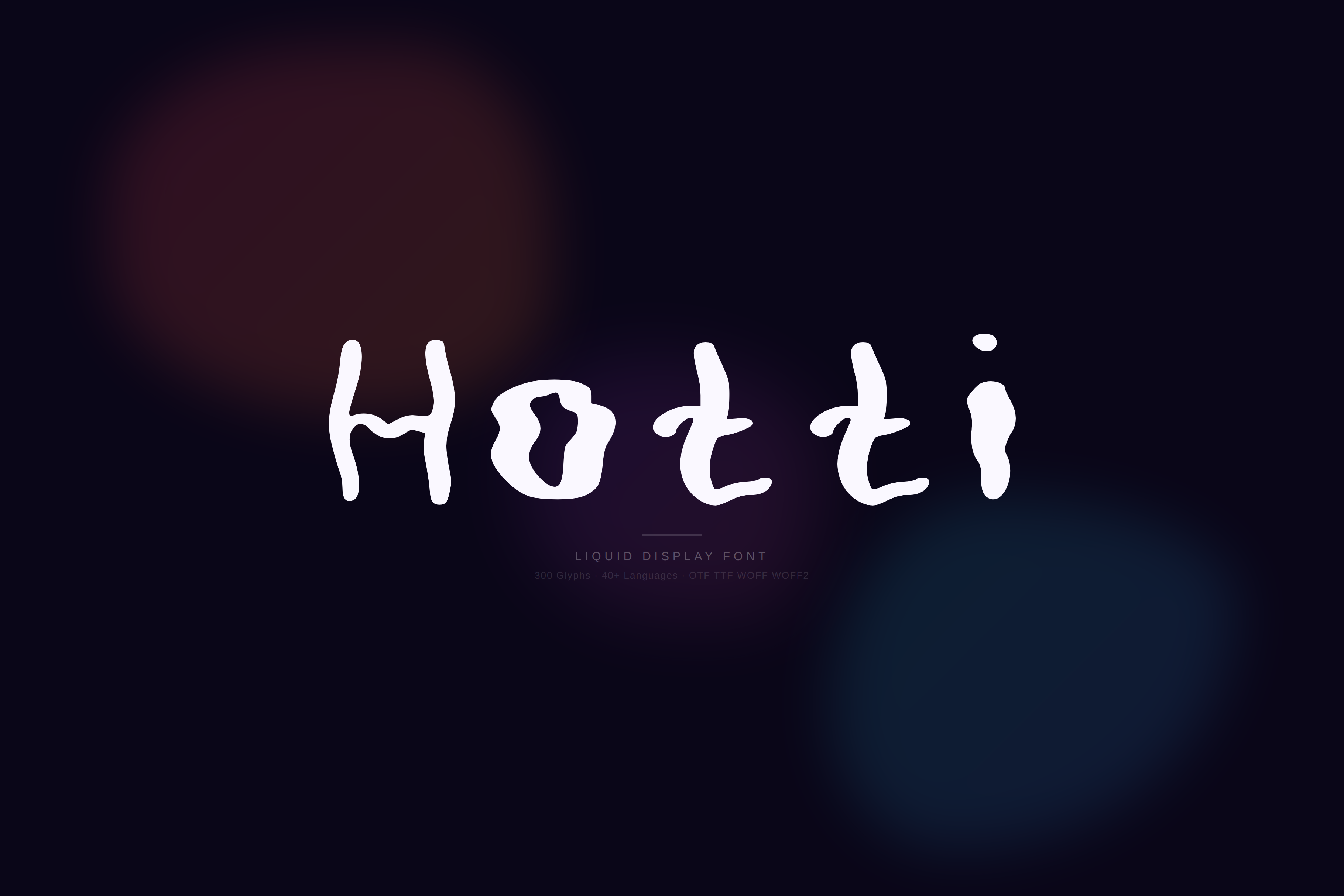
Hotti — Liquid Display Font
Introducing Hotti — a display font that looks like it's melting off the screen. Every letter drips, warps, and ripples like heat rising off asphalt. Not clean. Not safe. Just pure liquid energy.
Hotti is for brands that run hot — hot sauce labels, cocktail bars, music festivals, streetwear drops, and anything that needs to feel like it's on fire.
PERFECT FOR:
- Hot sauce & spicy food brands
- Cocktail bars & nightlife venues
- Music festivals & concert posters
- Streetwear & fashion labels
- Ice cream & gelato shops
- Summer pool party flyers
- YouTube thumbnails & channel art
- Podcast covers & branding
- Social media posts & stories
- Website headers & hero sections
- Energy drink & beverage packaging
- Tattoo studio branding
- Record labels & album covers
- Food truck signage
WHY HOTTI? Most display fonts play it safe — Hotti doesn't. Its melting, rippling letterforms feel alive. They drip with personality. One word in Hotti says more than a paragraph in a regular font. If your brand has heat, Hotti is the typeface that matches it. Liquid letters. Instant attitude.